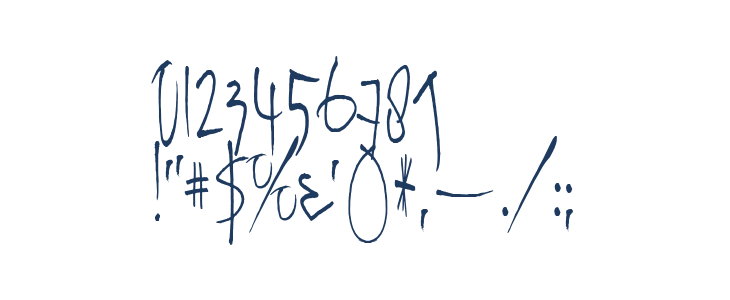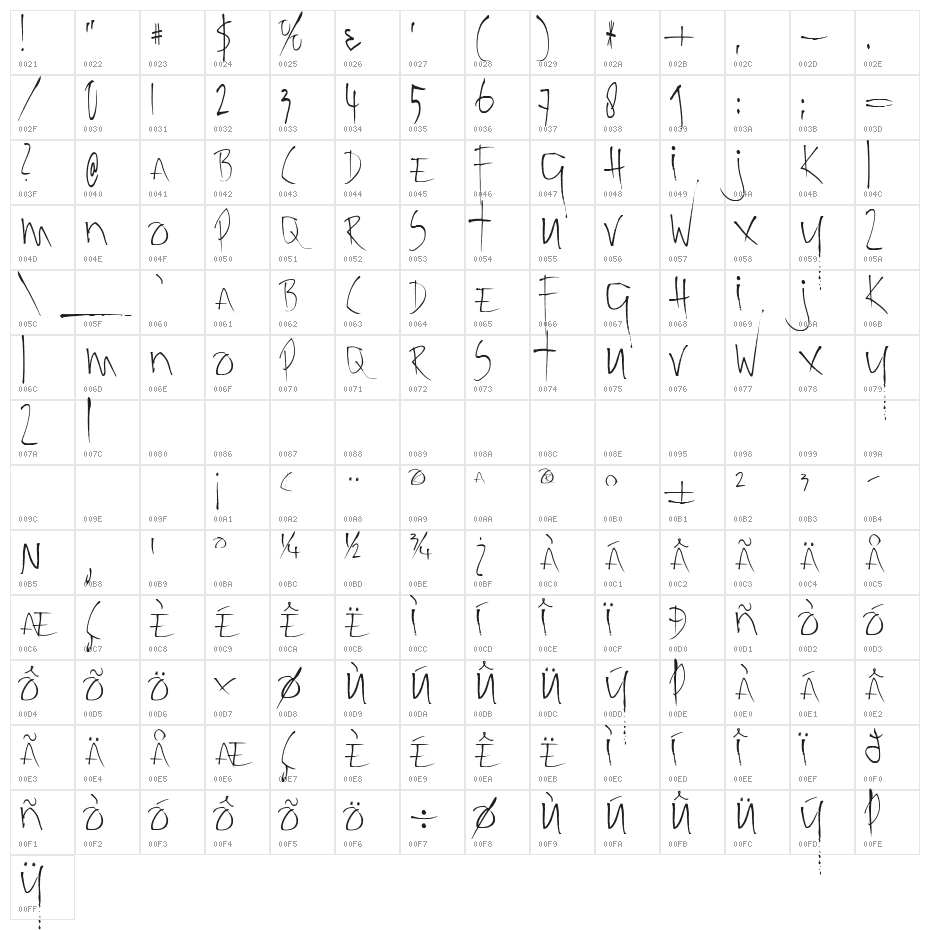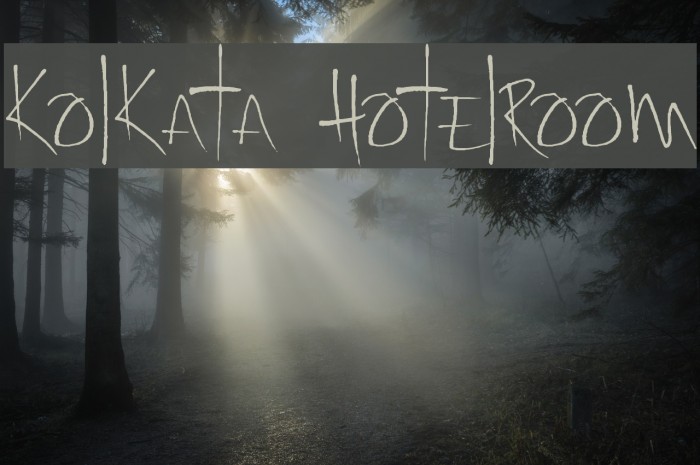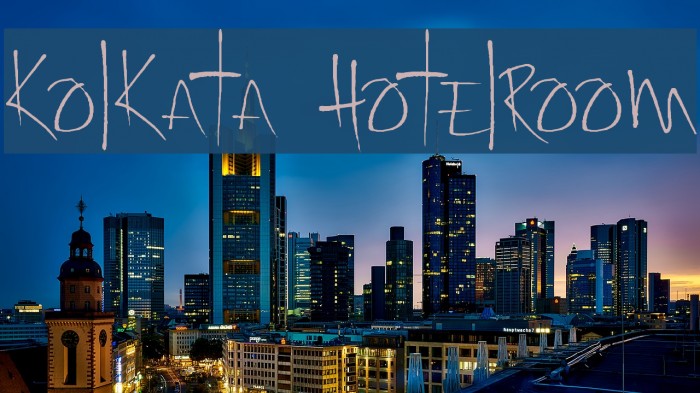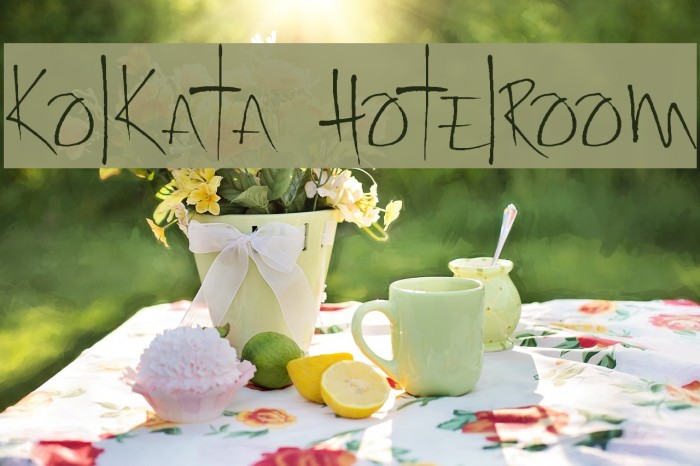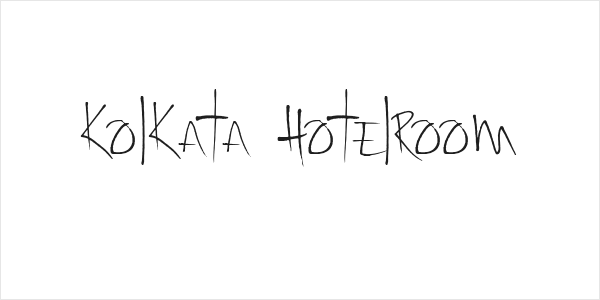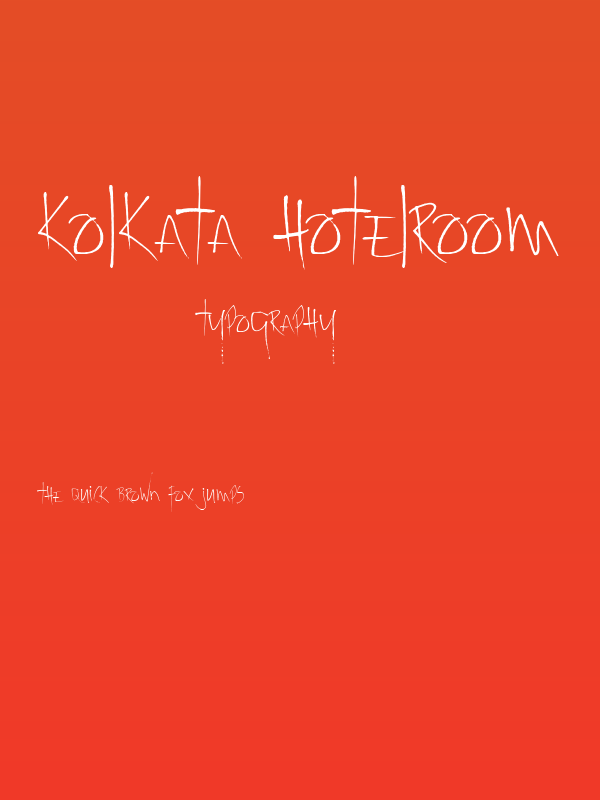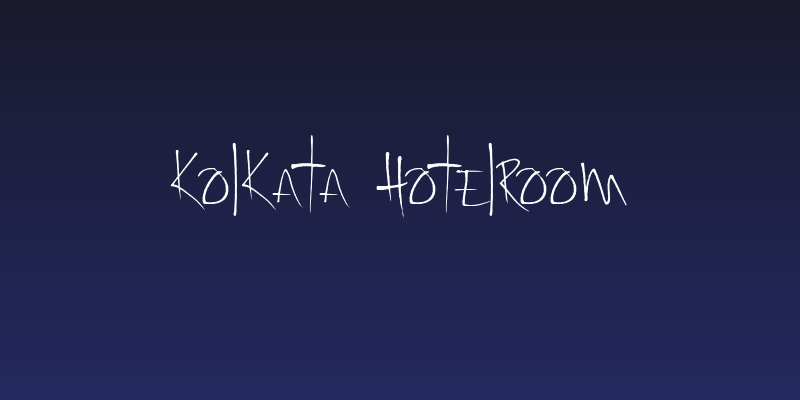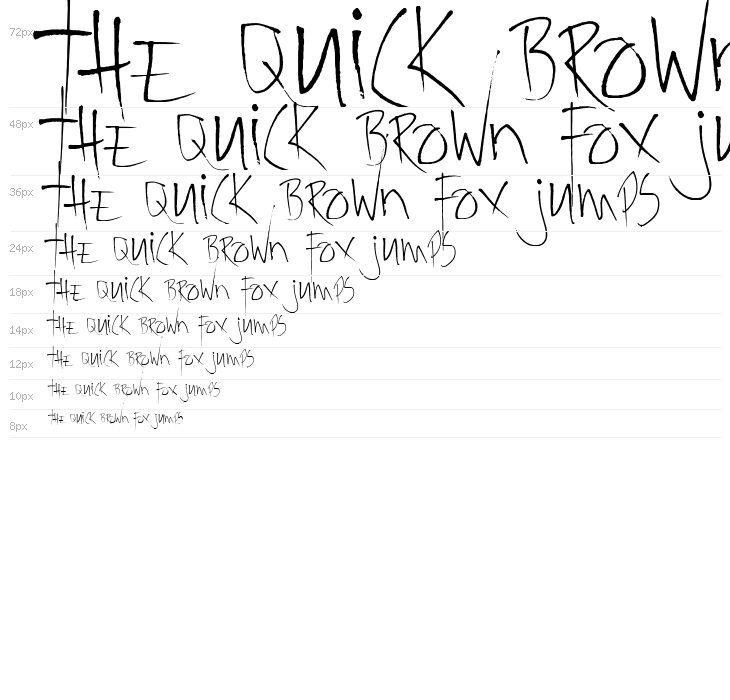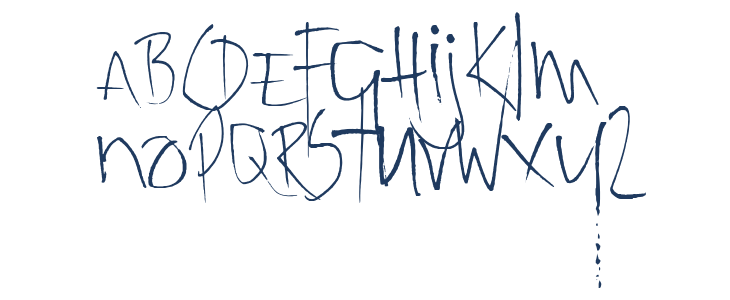
Kolkata Hotelroom Font
Kolkata Hotelroom Description
This font exhibits a unique, handwritten style with an artistic flair. The letters are characterized by irregular strokes and varying line thickness, giving it a dynamic and expressive appearance. The uppercase letters are bold and prominent, while the lowercase letters maintain a consistent flow with a slightly more compact form. Numbers and special characters follow the same handwritten aesthetic, adding to the font's cohesive look. The overall design is informal and creative, making it suitable for projects that require a personal touch or an artistic vibe.
| Overall Style | Artistic, Informal |
| Use Case | Logos, Invitations, Artistic Posters |
| Proposed Projects | Ideal for creative projects such as art posters, personal branding, invitations, and any design that benefits from a personal, artistic touch. |